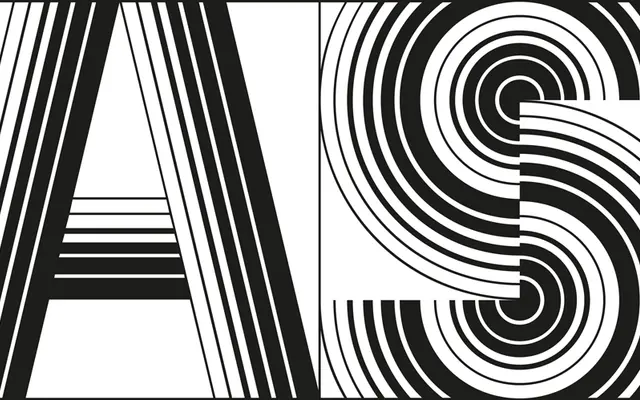
Store Norske Bass
A monospaced display typeface derived from Armin Haab and Walter Hættenschweiler's Lettera alphabet, expanded by Arve Båtevik into a full Latin extended character set.
Each glyph occupies an identical footprint, giving Bass a modular, grid-driven rhythm suited to posters and record covers. Arve Båtevik's digital expansion adds diacritics, punctuation and symbols absent from the 1954–72 Lettera source, extending coverage to Western, Central and Northern European scripts including Sami languages. The bold visual presence and monospaced uniformity invite typographic play without sacrificing legibility at display sizes.
Bass is strictly monospaced with each character occupying uniform width and height, derived from a lettering alphabet in Lettera (1954–72). Its bold, grid-like construction and use in posters and record covers places it firmly in display rather than text territory.